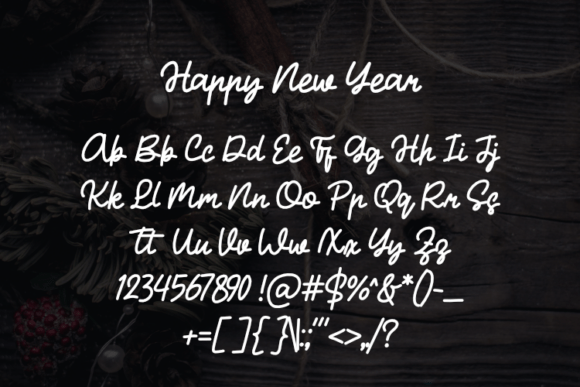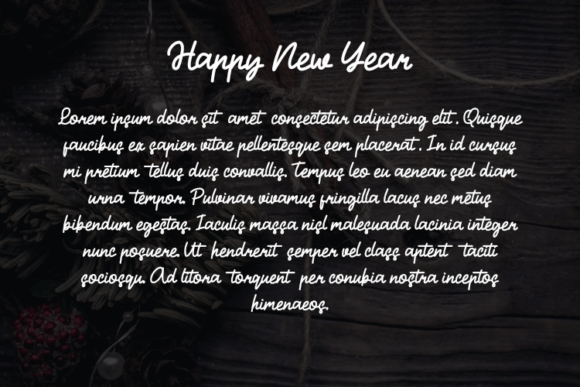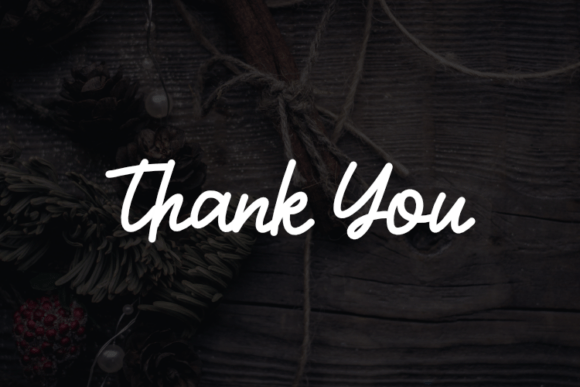
Happy New Year Font: A Modern and Elegant Typeface for Your Design Needs
As the clock strikes midnight on New Year’s Eve, we bid adieu to the old and welcome the new with open arms. The start of a new year is a time for celebration, reflection, and fresh beginnings. What better way to usher in the new year than with a beautiful and elegant font that embodies the spirit of joy and festivity? Look no further than the Happy New Year Font, a modern and sophisticated typeface designed to bring a touch of class and sophistication to your designs.
What is Happy New Year Font?
Happy New Year Font is a modern and elegant typeface crafted with flexibility and readability in mind. This stunning font is perfect for a wide range of design applications, from digital media to print materials. Whether you’re a designer, crafty DIY enthusiast, or simply someone who appreciates beautiful typography, Happy New Year Font is an excellent addition to your font library.
Key Features of Happy New Year Font
- Excellent Readability: The font is designed with readability in mind, making it perfect for body text, headings, and titles. Its clear and elegant letterforms ensure that your message is conveyed with clarity and style.
- Flexibility: Happy New Year Font is a versatile typeface that can be used across a variety of media, from digital screens to print materials. Its flexibility makes it an ideal choice for designers who need a reliable font for multiple projects.
Why Choose Happy New Year Font?
With so many fonts available, why choose Happy New Year Font? Here are just a few reasons why designers and crafters love this elegant typeface:
- Unique and Distinctive: Happy New Year Font boasts a unique and distinctive style that sets it apart from more traditional fonts. Its modern and elegant design makes it perfect for designers who want to add a touch of sophistication to their work.
Design Ideas with Happy New Year Font
Happy New Year Font is a versatile typeface that can be used in a wide range of design applications. Here are some design ideas to get you started:
- New Year’s Eve Invitations: Create stunning New Year’s Eve invitations with Happy New Year Font. Its elegant and modern design makes it perfect for formal and informal events.
- Social Media Graphics: Use Happy New Year Font to create eye-catching social media graphics, including Facebook posts, Instagram stories, and Twitter headers.
- Brochures and Flyers: Add a touch of sophistication to your brochures and flyers with Happy New Year Font. Its excellent readability makes it perfect for body text and headings.
In conclusion, Happy New Year Font is a modern and elegant typeface that is perfect for designers and crafters who want to add a touch of sophistication to their work. Its excellent readability, flexibility, and cross-platform compatibility make it an ideal choice for a wide range of design applications. Whether you’re designing New Year’s Eve invitations, social media graphics, or brochures and flyers, Happy New Year Font is a great addition to your font library.